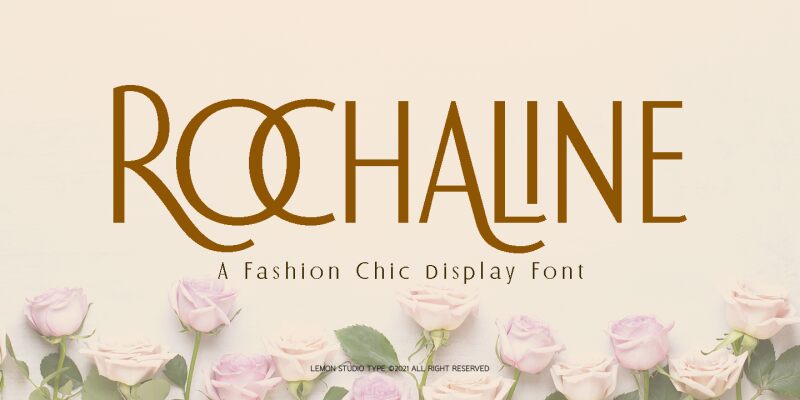
Rochaline, a striking sans serif font designed by Lemon Studio Type, is a versatile typeface suitable for any project that requires an elegant and modern touch. With its semi-light weight, Rochaline brings a sense of delicacy to your text without sacrificing legibility. Perfect for branding designs, websites, and editorial layouts, this font adds sophistication to any text-heavy project. Its clean lines are ideal for minimalistic designs while its unique character shapes make it an excellent choice for creative projects such as logos or product packaging. Whether you're designing a website or crafting a magazine spread, Rochaline is the perfect choice to make your text stand out.
Rochaline